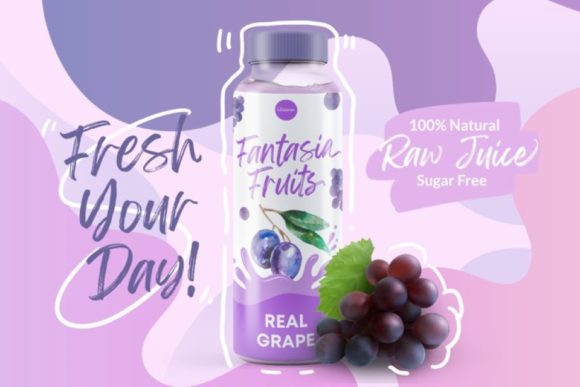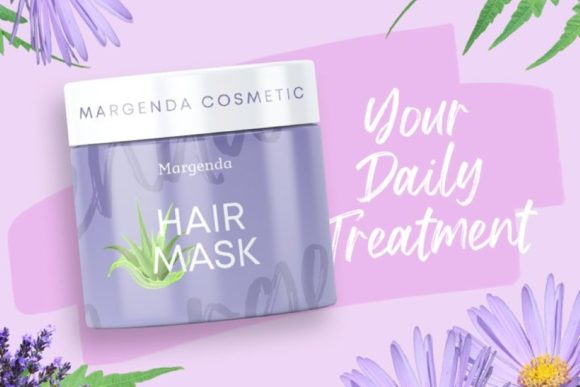
Feeling Passionate Font
db-ku.com - Script & Handwritten -- Feeling Passionate is a casual and beautiful brush font. It will elevate a wide range of design projects to the highest level, be it branding, headings, wedding designs, invitations, signatures, logos, labels, and much more!